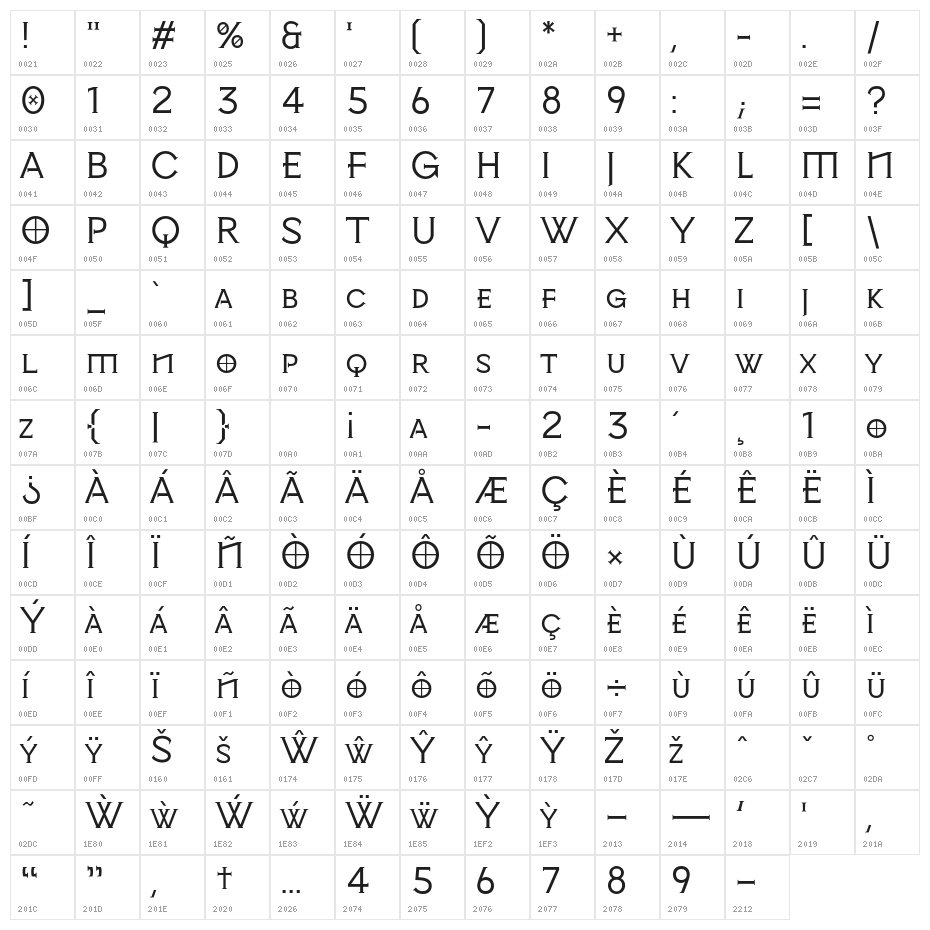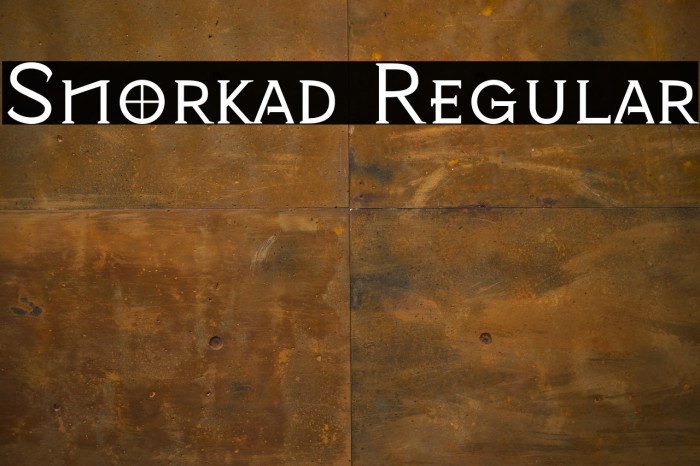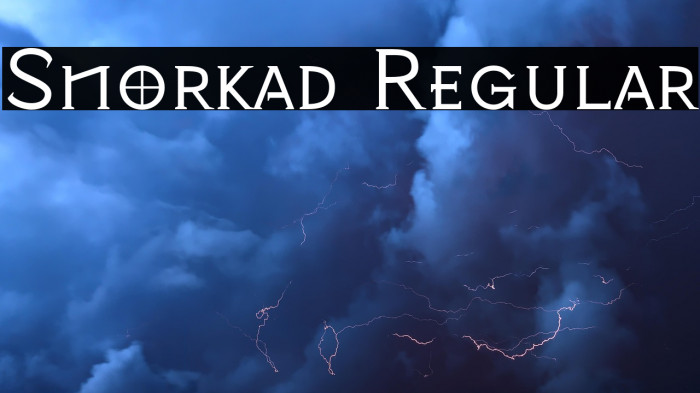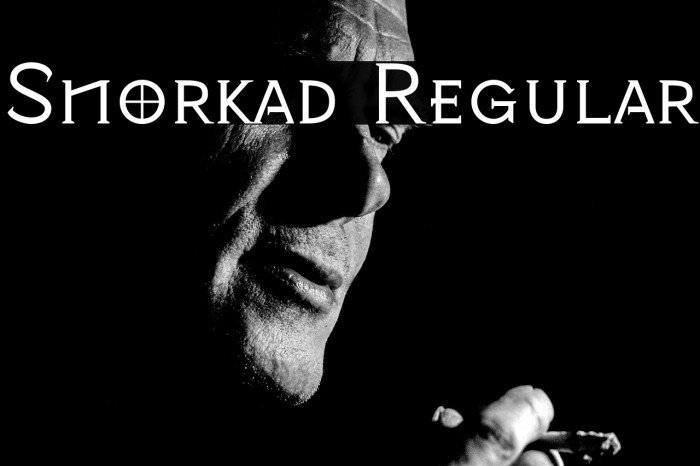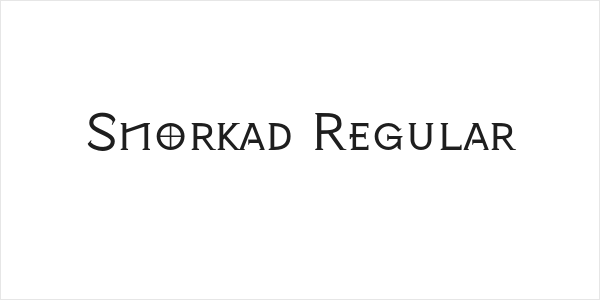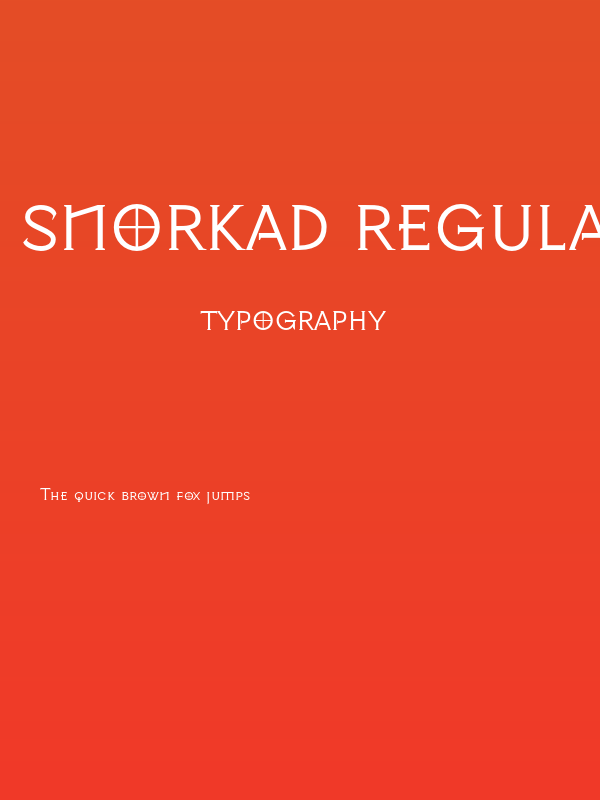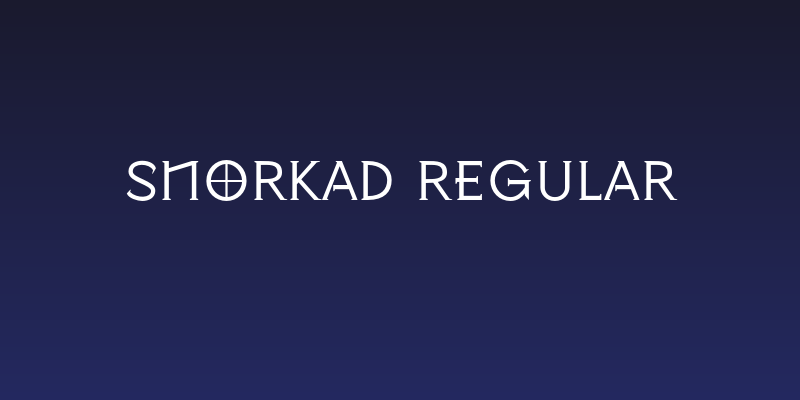
Snorkad Regular Font
Snorkad Regular Description
This font features a unique blend of geometric and modern elements, characterized by its distinct circular and angular shapes. The uppercase letters exhibit a strong presence with their bold, clean lines and a slight futuristic touch. The lowercase letters maintain a consistent style, complementing the uppercase with their rounded forms. Numbers are clear and legible, with a uniform thickness that enhances readability. Special characters are creatively designed, adding a playful yet sophisticated element to the overall aesthetic. The font's design is versatile, making it suitable for various applications while maintaining a cohesive and stylish appearance.
| Proposed Projects | Ideal for branding, advertising, digital media, and editorial design projects. |